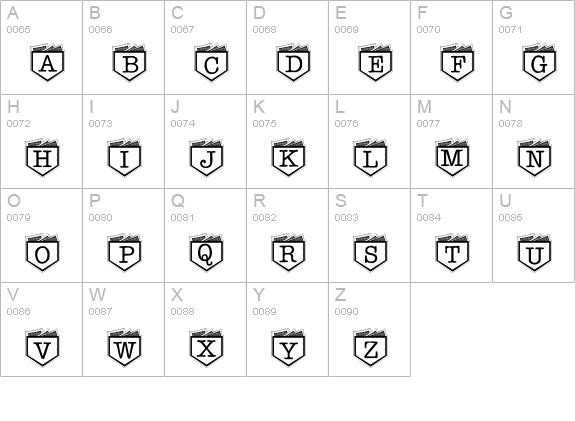
Introducing 101! In My Pocket font, a delightful and playful typeface that will bring a touch of whimsy to your designs. This font features intricate and unique characters that are sure to stand out in any project. With its quirky style and charming appeal, 101! In My Pocket is perfect for adding a fun and creative element to your designs. Best of all, this font is available for free download at FontsMarket.com! Simply head over to the website and add this delightful typeface to your collection without spending a dime. Whether you're working on a poster, invitation, or branding project, 101! In My Pocket font is sure to bring a smile to your audience's face. Download it today and let your creativity soar with this playful and free-spirited font.